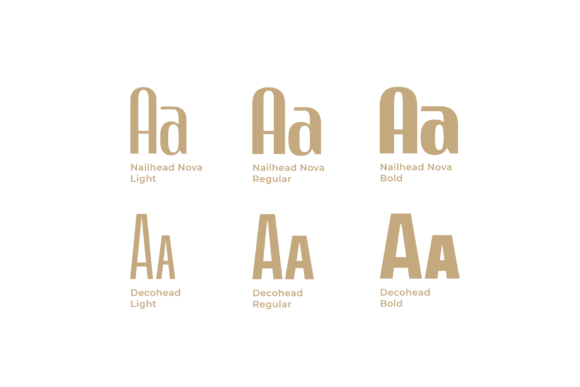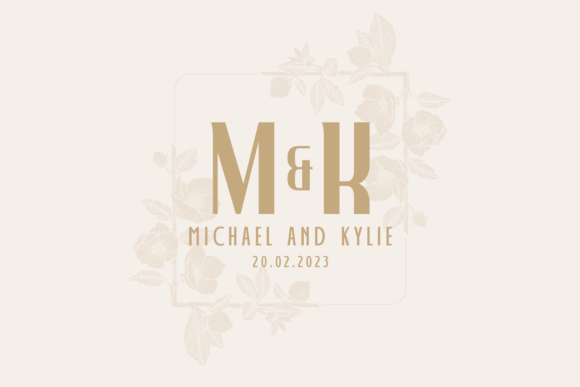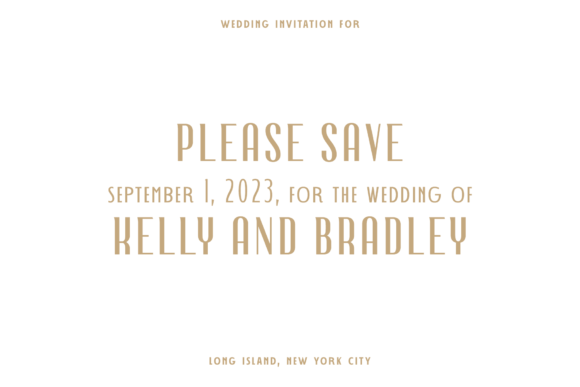
Boho Wedding Duo Font
Introducing The Boho Wedding Font Duo, a perfect blend of contrasting fonts designed specifically for bohemian-inspired weddings. This pairing brings together elegance and simplicity in perfect harmony. One font exudes refined sophistication, while the other showcases a clean and geometric sans-serif design. Nailhead Nova, an exquisite font, joins forces with Decohead, an art deco sans serif typeface, resulting in a versatile duo that elevates your bohemian-inspired designs.The Boho Wedding Font Duo is a versatile choice for any festive design project that calls for a touch of glamour and decoration. Whether it’s wedding invitations, place cards, or other celebratory designs, this font pairing whispers elegance and charm into every element. With its ability to create a festive ambiance, this duo is your go-to for capturing the essence of bohemian beauty in a glamorous and decorative manner.